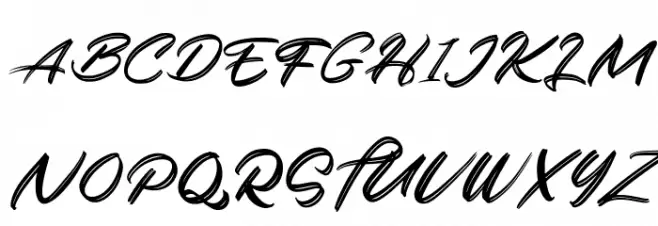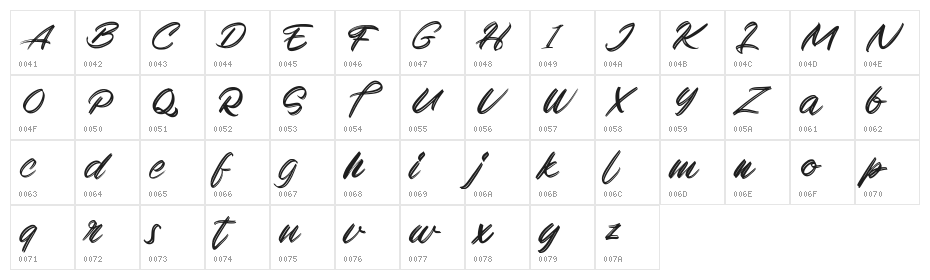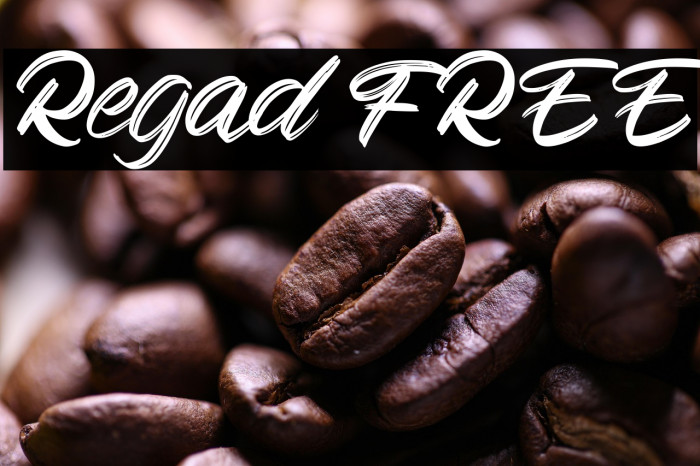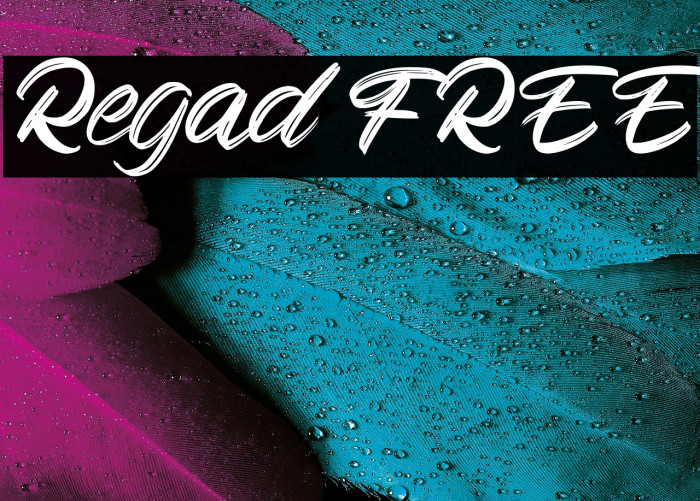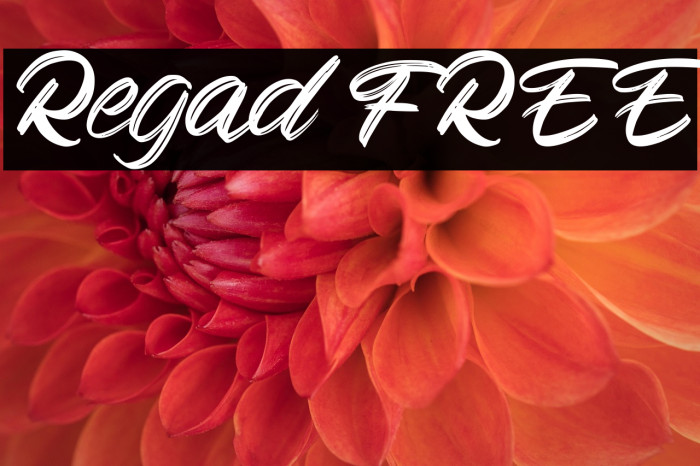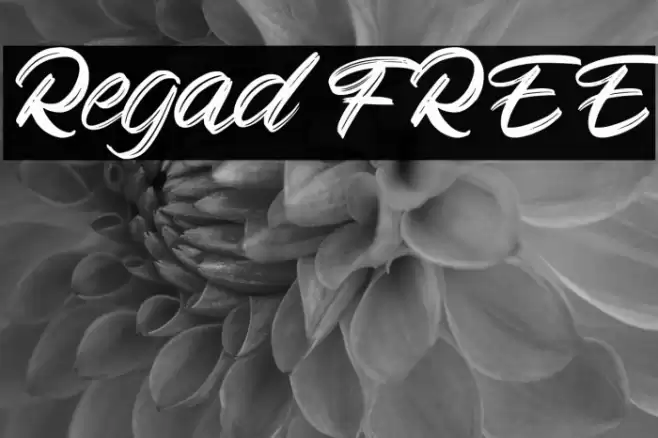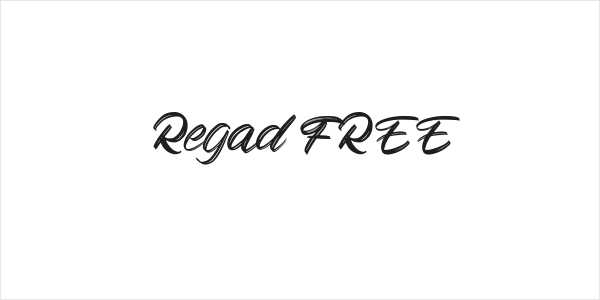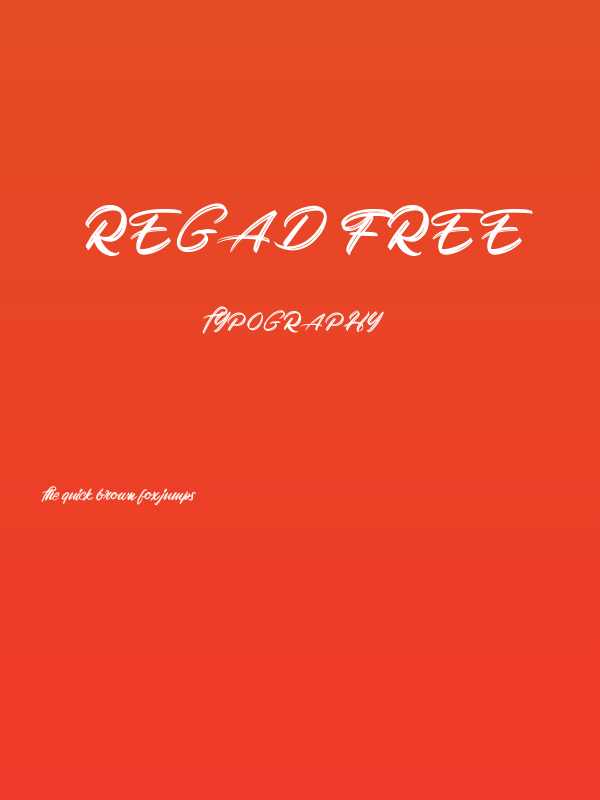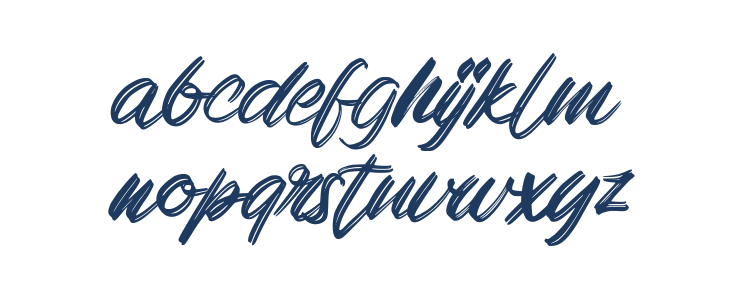
Regad FREE Font
Regad FREE Description
This font features a dynamic and expressive script style, characterized by its flowing, cursive letterforms. The strokes are bold and energetic, with a slight slant that adds a sense of motion and elegance. The uppercase and lowercase letters are designed with a consistent rhythm, creating a harmonious and cohesive look. The font includes a full set of uppercase and lowercase letters, numbers, and a selection of special characters, making it versatile for various design needs. Its bold presence makes it suitable for impactful headlines and creative projects.
| Proposed Projects | Ideal for branding, logos, invitations, and creative headlines. |